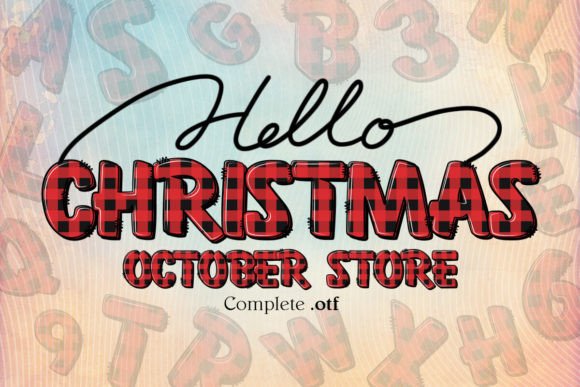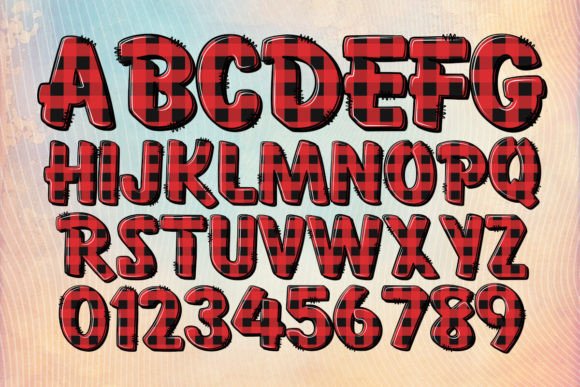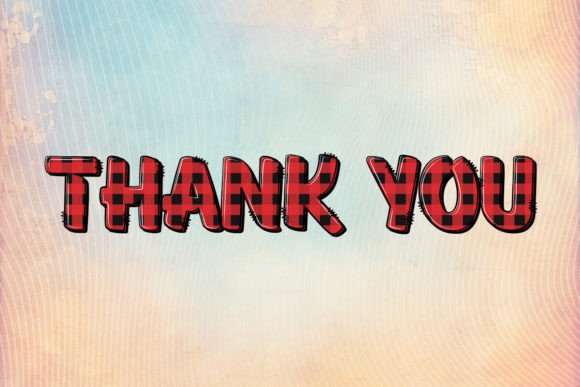
Christmas Font
Indulge in the festive spirit with Christmas Tartan Font, a captivating typeface inspired by classic holiday textile. Exuding a warm, cozy aura, this fabric font fosters a sense of love and family bonding. Seamlessly unifying traditional and contemporary design elements, Christmas Tartan Font delights in spreading the charm of yuletide celebrations. Dive into the magic of creating heart-warming messages, season’s greetings or stocking stuffer tags with this unique, comforting font. Rich in history and infused with love, this font is designed to awaken your creative inner elf this holiday season.The black version of this font is compatible with Cricut Design Space and other cutting machines.Note! The color version of this font is only compatible with certain design programs incl. PhotoShop, Illustrator, Silhouette, and Inkscape. The OTF and/or TTF files of the color version are not compatible with Cricut. For more information on how to use this type of font please check our Ultimate Font Guide .